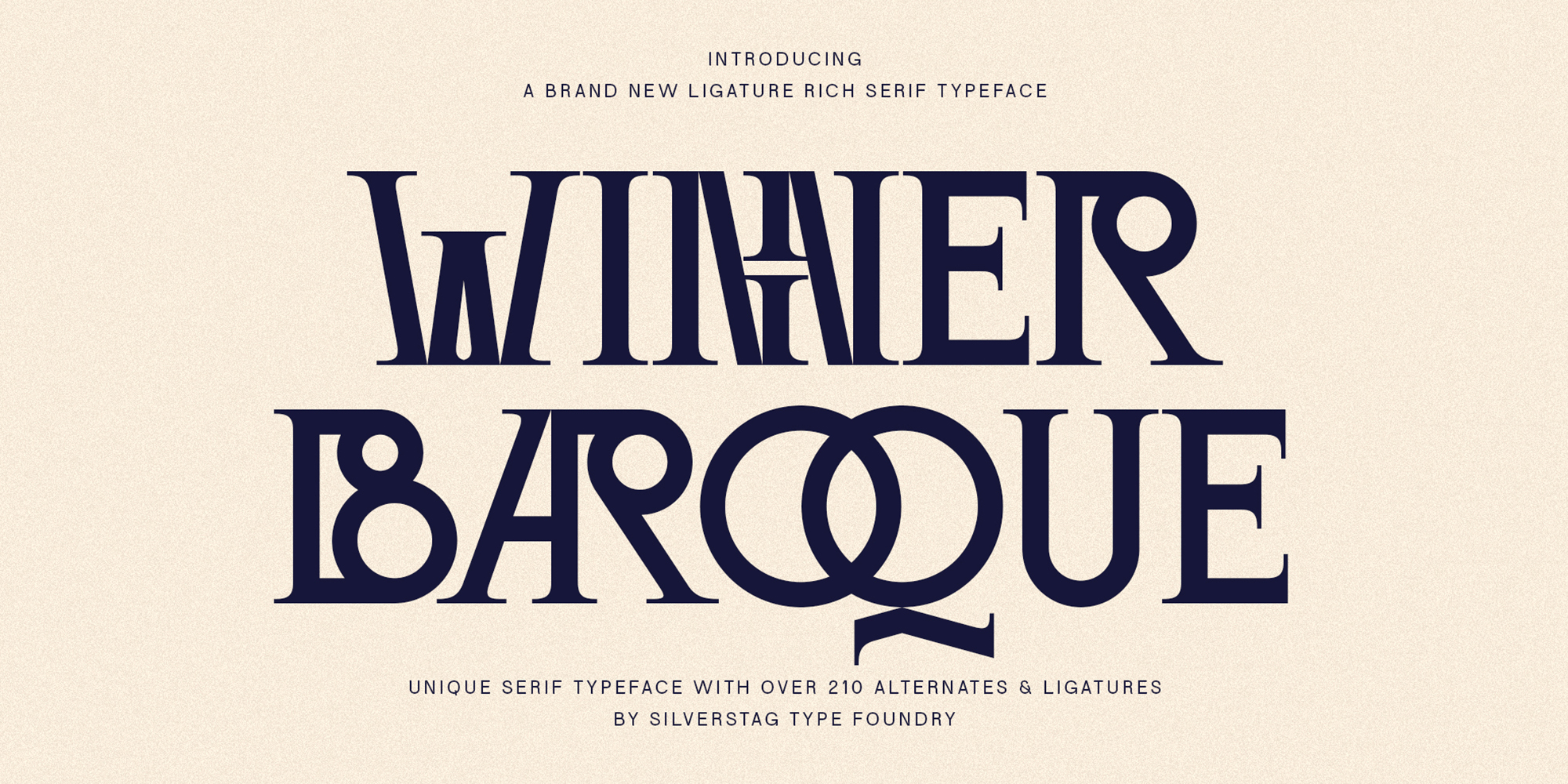
SLTF Winner Baroque Font is perfect for classic branding, vintage logos, ornate wedding invitations, luxury packaging, exquisite certificates, formal event signage, and historical editorial layouts. Its elaborate swashes and rich serif details evoke the grandeur of Baroque-era art and architecture.
What makes SLTF Winner Baroque Font Free Download so exciting is its intricate ornamental design that blends classical elegance with modern readability. Each letter carries decorative flourishes and fluid curves, creating a sense of opulence while remaining legible in both display and text sizes.
The SLTF Winner Baroque font family typically includes a single decorative weight, offering stunning impact on titles, logos, and ornamental headings. In some editions, you may also find stylistic alternates and ligatures that enhance its decorative potential.
Whether you're creating a regal brand identity, crafting an elegant wedding package, designing a period-style book cover, or producing high-end certificates, SLTF Winner Baroque Font Free Download adds sophistication and historical depth. Just remember—while it's free for testing, a proper license is required for commercial use.